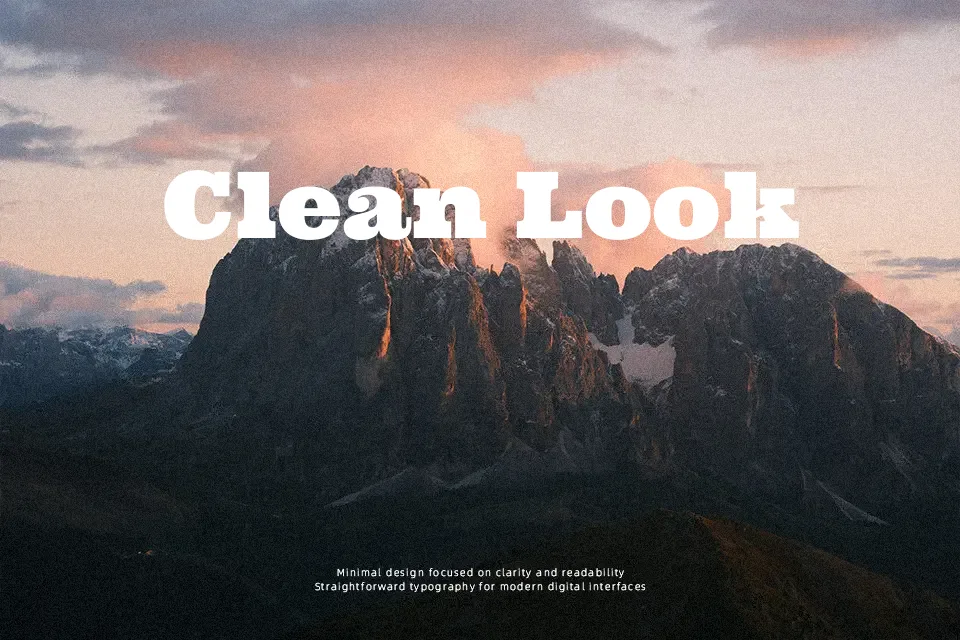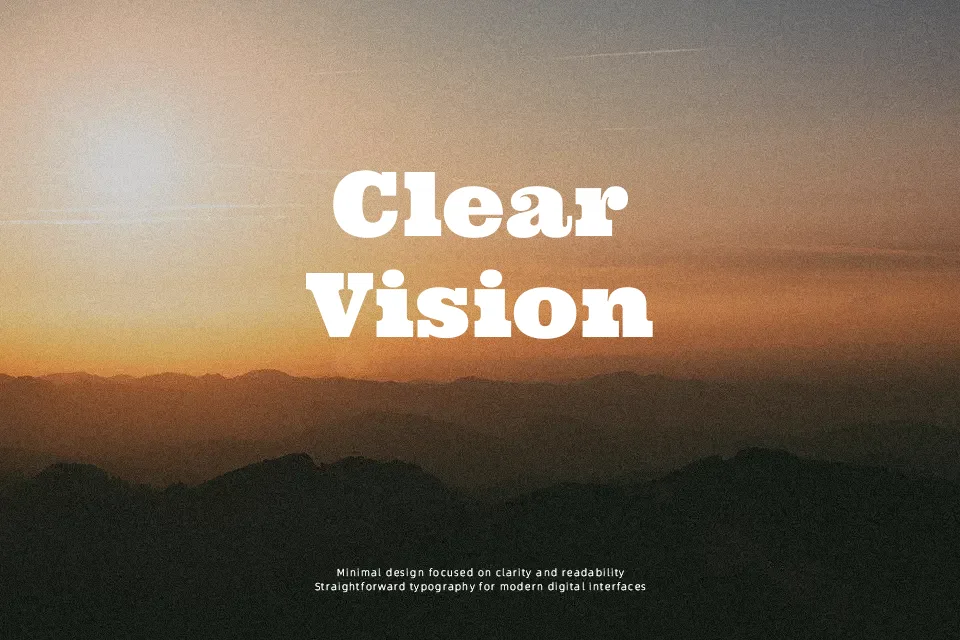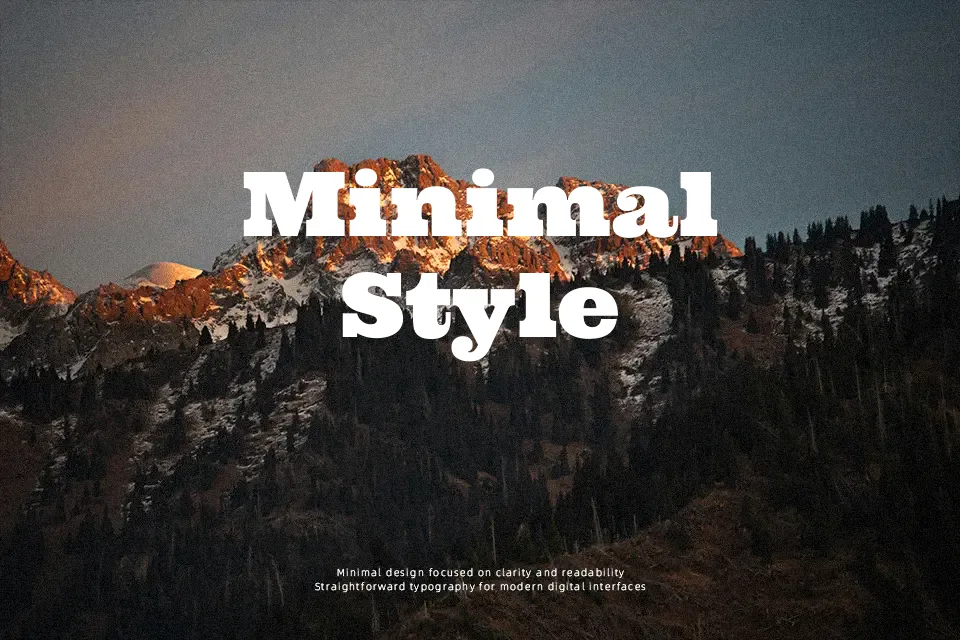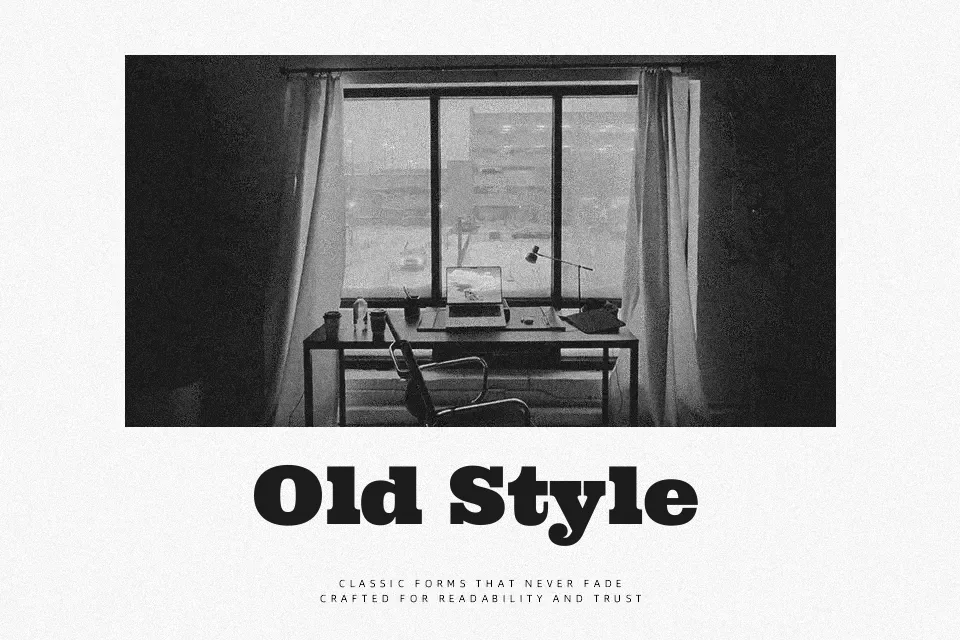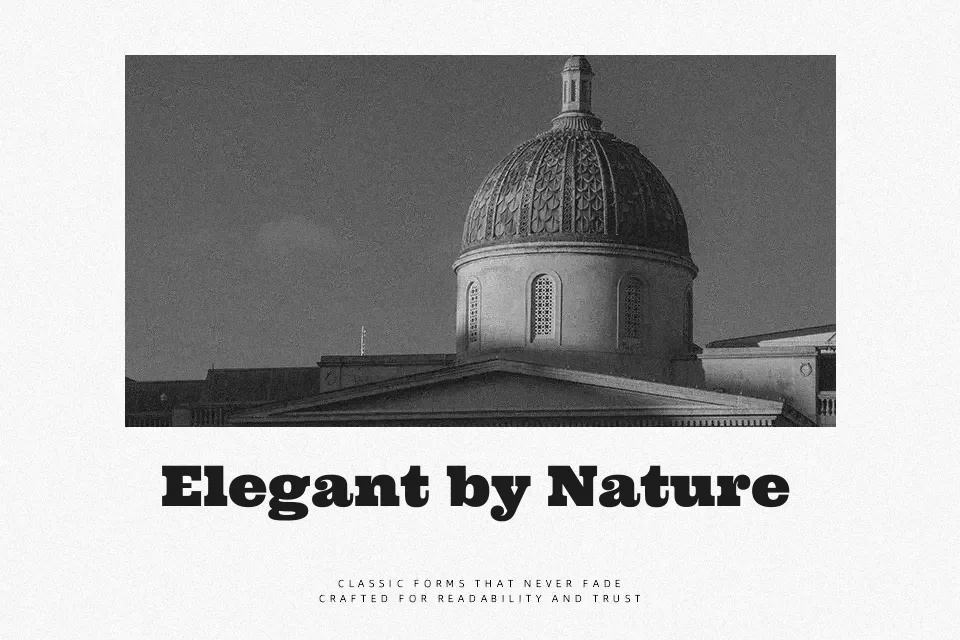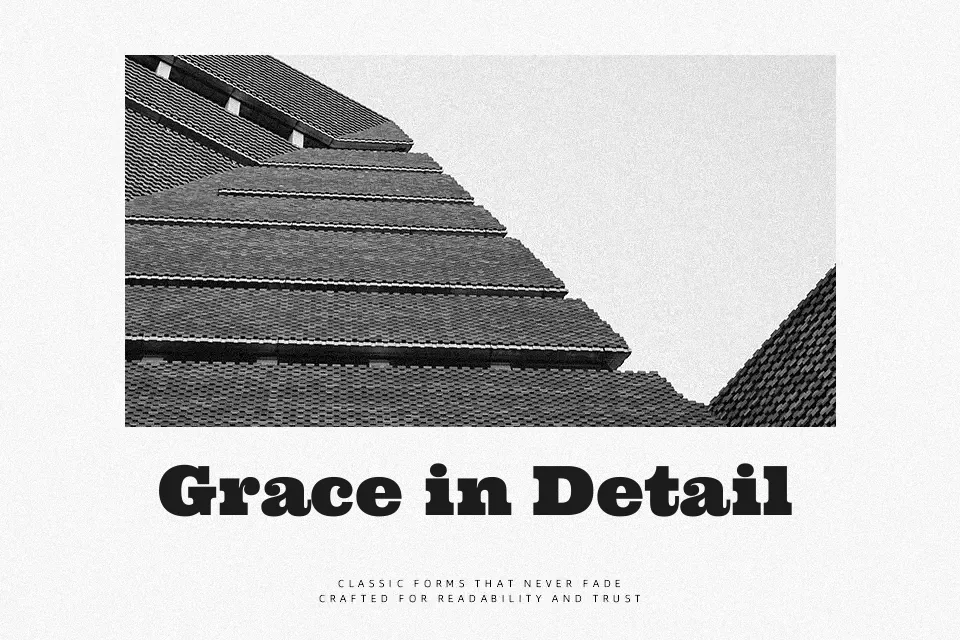
Ultra Font
Designed by Astigmatic
Ultra is a thick, high-impact serif with broad slab terminals, tight vertical proportions, and sturdy strokes that hold together even at large sizes. It feels like a contemporary take on classic wood-type posters: serious enough for assertive branding, but with a relaxed, approachable edge. The spacing is compact and the weight is dense, so it thrives in short words, punchy headlines, mastheads, and large callouts where you want letters to feel almost carved rather than drawn. For running paragraphs, UI copy, or small captions it quickly becomes tiring, so it works best paired with a calmer text serif or sans. If you like the drama of faces such as Clarendon-style slab serifs but want something even chunkier, Ultra belongs in your display toolkit.
big, high-contrast headlines on posters and covers
short branding wordmarks that need strong slab-serif character
editorial pull quotes and hero typography on websites
long-form body text or dense reading layouts
small UI labels, captions, or data-heavy interfaces
minimalist branding that needs very light or neutral typography
Perfect for branding, editorial, and headline, with a artistic and display style.